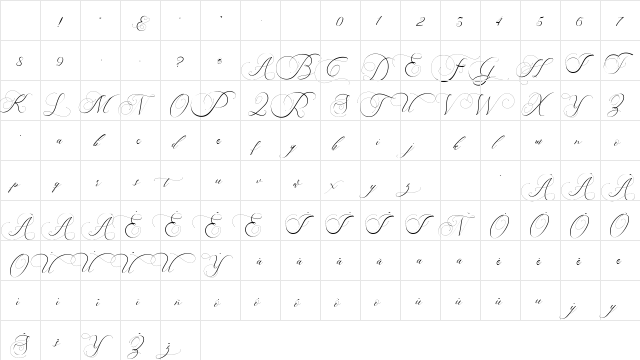
Complete Beauty Angelique Regular glyph index. Displaying only characters natively supported by Beauty Angelique Regular font.
Beauty Angelique is a composed and adaptable typeface that performs quietly and consistently across a wide range of design contexts.